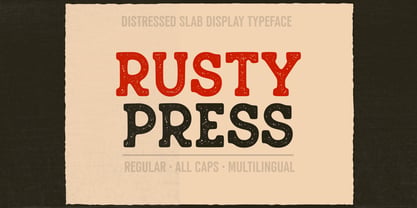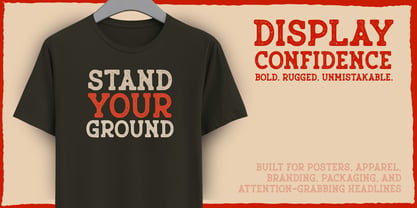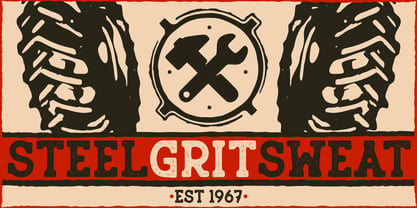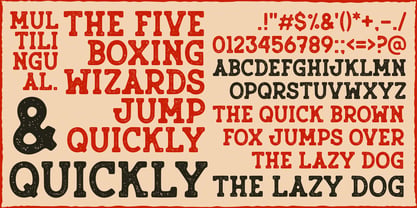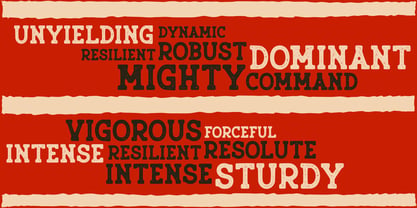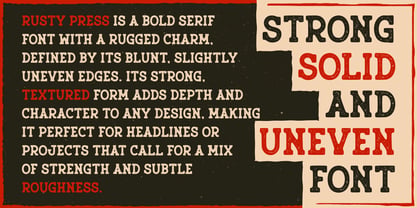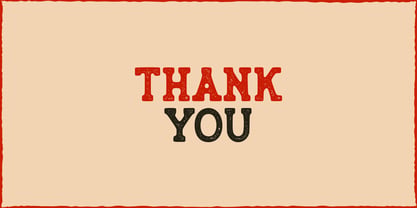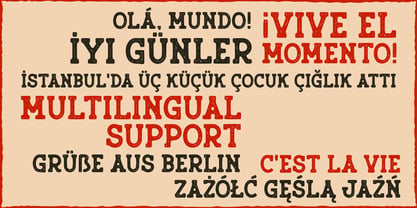
Rusty Press
by RADesigns21
Rusty Press is a bold serif font that exudes rugged charm, characterized by its blunt, slightly uneven edges. This strong, textured typeface adds depth and character to any design, making it an excellent choice for headlines or projects that require a blend of strength and subtle roughness. Inspired by weathered signage, worn surfaces, and traditional letterpress printing, Rusty Press merges a sturdy presence with a naturally distressed look. The result is a typeface that feels both reliable and full of personality. Ideal for posters, branding, packaging, apparel, signage, and display work, Rusty Press infuses a bold, hardworking character into designs that aim to make a statement.